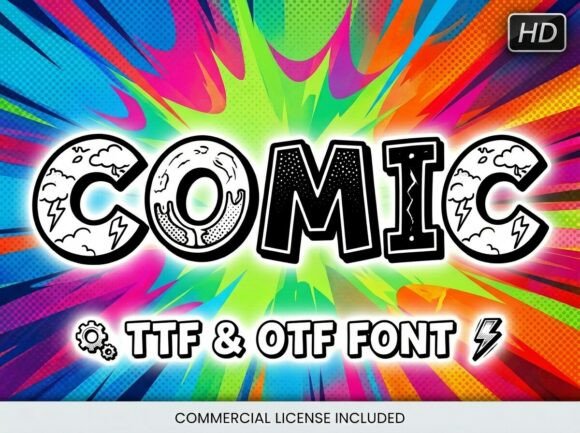
Unleash the Power of Comic Font: Elevate Your Designs with a Premium Display Font
Are you tired of using the same old fonts in your designs? Do you want to add a punch of personality and energy to your visual projects? Look no further than Comic Font, a premium display font that’s engineered to bring high-impact storytelling to life. In this article, we’ll explore the unique features and benefits of Comic Font, and show you how it can help you smash through the ordinary and unleash a multi-textured graphic punch onto your canvas.
The Inspiration Behind Comic Font
Comic Font is a bold and eye-catching sans-serif typeface that’s inspired by the classic graphic novels of the past. Its designers sought to create a font that would strike a magnificent balance between bold pop-art block letters and traditional graphic novel aesthetics. The result is a heavy, high-impact font that’s perfect for making a statement in any design project.
What Sets Comic Font Apart
So, what makes Comic Font so special? For starters, every character in this font has a completely unique internal design identity. This means that each letter, number, and symbol is carefully crafted to stand out on its own, while still working together to create a cohesive and visually appealing design. Whether you’re using Comic Font for a graphic novel, a gaming stream overlay, or a playful apparel brand, this font is sure to make your designs pop.
Comic Font is an exceptional centerpiece asset for a wide range of design projects, including:
- Alternative graphic novels: Add a bold and edgy touch to your graphic novels with Comic Font.
- High-energy gaming stream overlays: Take your gaming streams to the next level with this high-impact font.
- Playful apparel branding: Create fun and eye-catching apparel designs that are sure to stand out.
- Children’s toy packaging logos: Add a playful and imaginative touch to your children’s toy packaging with Comic Font.
- Action-packed merchandise headings: Use Comic Font to create bold and attention-grabbing headings for your merchandise designs.
Key Features of Comic Font
Here are just a few of the key features that make Comic Font so special:
- Bold and eye-catching design: Comic Font is a heavy sans-serif typeface that’s designed to make a statement.
- Unique character design: Every character in this font has a completely unique internal design identity.
- High-impact storytelling: Comic Font is engineered to bring high-impact storytelling to life.
- Multi-textured graphic punch: This font is designed to unleash a multi-textured graphic punch onto your canvas.
Tips for Using Comic Font in Your Designs
Here are a few tips for using Comic Font in your designs:
- Use it sparingly: Comic Font is a bold and eye-catching font, so use it sparingly to avoid overwhelming your design.
- Pair it with contrasting fonts: Pair Comic Font with contrasting fonts to create visual interest and hierarchy in your design.
- Experiment with colors: Comic Font looks great in a variety of colors, so don’t be afraid to experiment and find the perfect hue for your design.
In conclusion, Comic Font is a premium display font that’s engineered to bring high-impact storytelling to life. With its bold and eye-catching design, unique character design, and high-impact storytelling capabilities, this font is perfect for designers and crafters who want to add a punch of personality and energy to their visual projects. Whether you’re working on a graphic novel, a gaming stream overlay, or a playful apparel brand, Comic Font is an exceptional centerpiece asset that’s sure to make your designs pop.